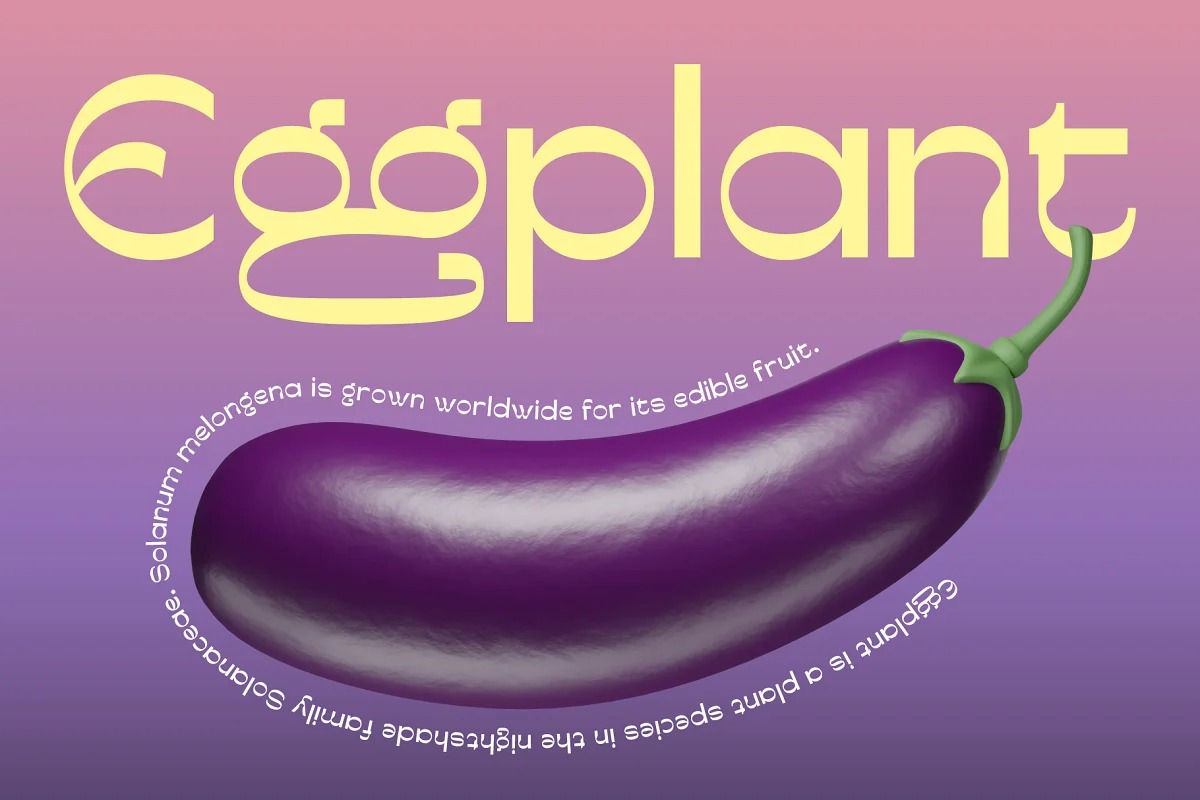
Niblick Display Font
This is a classic sans serif font design published by Prioritype Co, Design with geometrical structure to made an sensual and emotional. The unique touches on each character add to the visual impression that is more impressive.
Useful if your project requires strong, memorable visuals. Great for branding designs, posters and logos.